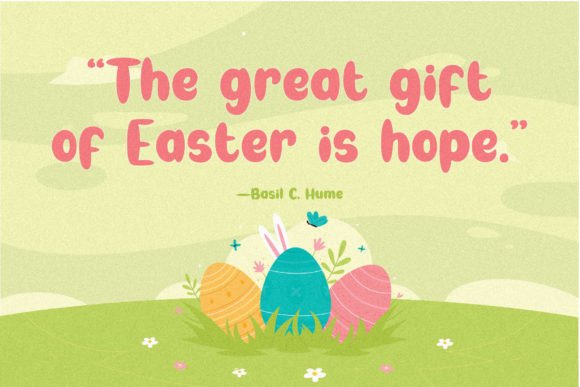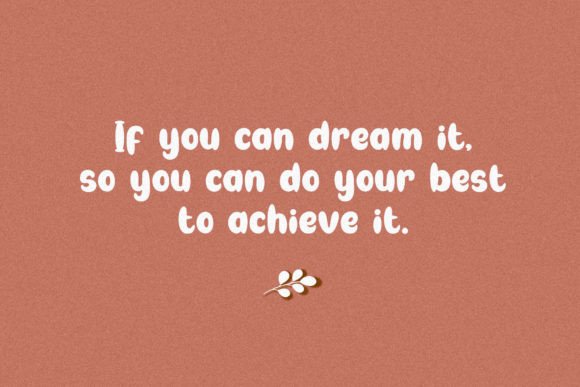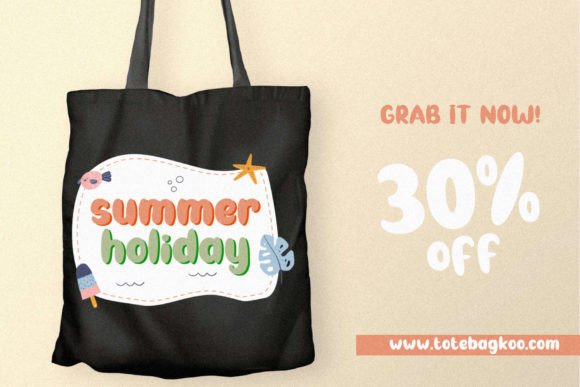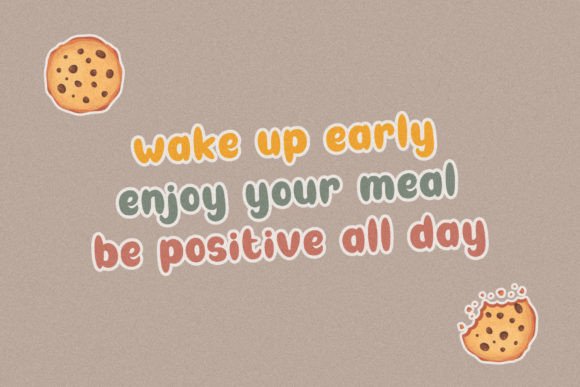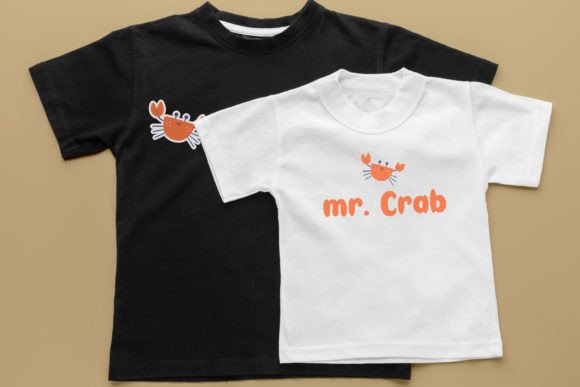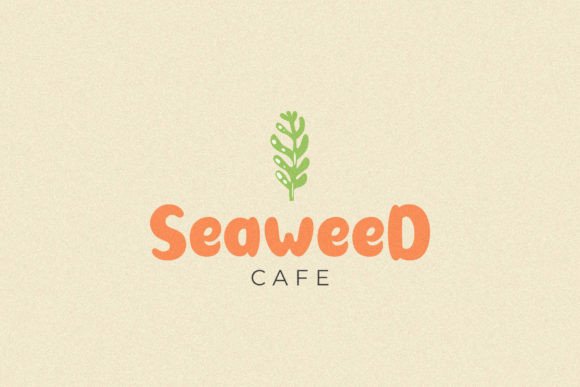
Introducing Happy Panda: The Ultimate Font for Fun and Playful Designs
Are you tired of using the same old fonts for your designs? Do you want to add a touch of fun and playfulness to your projects? Look no further than Happy Panda, a bold and playful font that’s perfect for any kid-friendly design. In this article, we’ll explore the features and benefits of Happy Panda, and show you how to make the most of this amazing font.
What is Happy Panda?
Happy Panda is a bold, playful font that’s designed to bring a smile to your face. With its rounded edges and bouncy curves, this font is perfect for designs that need a touch of whimsy and fun. Whether you’re creating a logo, poster, or greeting card, Happy Panda is the perfect choice for any kid-friendly project.
Key Features of Happy Panda
- Bold and Playful: Happy Panda is a bold font that’s designed to grab attention. Its playful curves and rounded edges make it perfect for designs that need a touch of fun.
- Kid-Friendly: Happy Panda is perfect for designs aimed at kids. Its fun and playful style is sure to appeal to kids of all ages.
- Versatile: Happy Panda is a versatile font that can be used for a wide range of designs, from logos and posters to greeting cards and more.
- Easy to Read: Despite its bold and playful style, Happy Panda is easy to read, making it perfect for designs that need to communicate a message.
Benefits of Using Happy Panda
So why should you choose Happy Panda for your designs? Here are just a few benefits of using this amazing font:
- Adds a Touch of Fun: Happy Panda adds a touch of fun and playfulness to your designs, making them more engaging and appealing.
- Perfect for Kid-Friendly Designs: Happy Panda is perfect for designs aimed at kids. Its fun and playful style is sure to appeal to kids of all ages.
- Increases Brand Visibility: With its bold and playful style, Happy Panda can help increase brand visibility and make your designs stand out.
- Choose Your Design: Next, choose the design you want to create. Whether it’s a logo, poster, or greeting card, Happy Panda is perfect for any kid-friendly project.
- Get Creative: Finally, get creative with Happy Panda. Experiment with different colors, textures, and design elements to create a unique and eye-catching design.
Design Ideas Using Happy Panda
Here are just a few design ideas to get you started with Happy Panda:
- Kids’ Party Invitations: Create fun and playful party invitations using Happy Panda.
- Logo Design: Use Happy Panda to create a bold and playful logo for your business or brand.
- Posters: Create eye-catching posters using Happy Panda. Perfect for advertising a kids’ event or promoting a new product.
- Greeting Cards: Use Happy Panda to create fun and playful greeting cards for kids.
In conclusion, Happy Panda is a bold and playful font that’s perfect for any kid-friendly design. With its rounded edges and bouncy curves, this font is sure to add a touch of fun and playfulness to your designs. Whether you’re creating a logo, poster, or greeting card, Happy Panda is the perfect choice. So why wait? Download Happy Panda today and start creating fun and playful designs that kids will love.